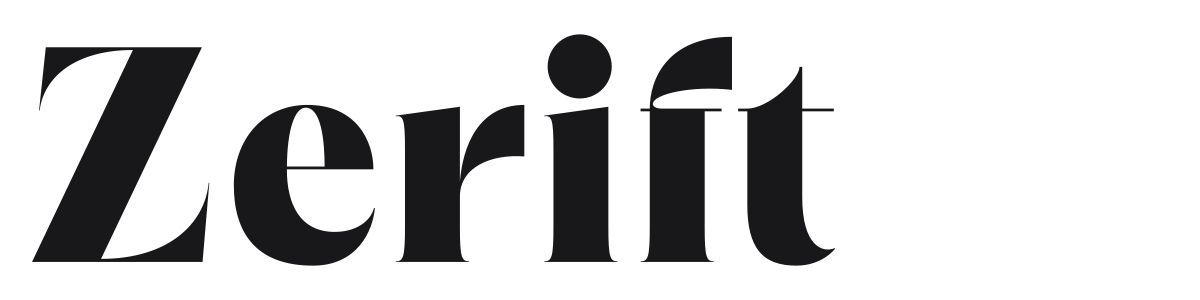
Zerift
by Glyphofik Studio · Website
Zerift is a bold modern serif with dramatic high-contrast strokes rooted in the Didone tradition. The heavy stems against razor-thin hairlines create a tension that reads as both powerful and refined. It belongs in fashion editorials, luxury branding, and any headline that needs to command attention.